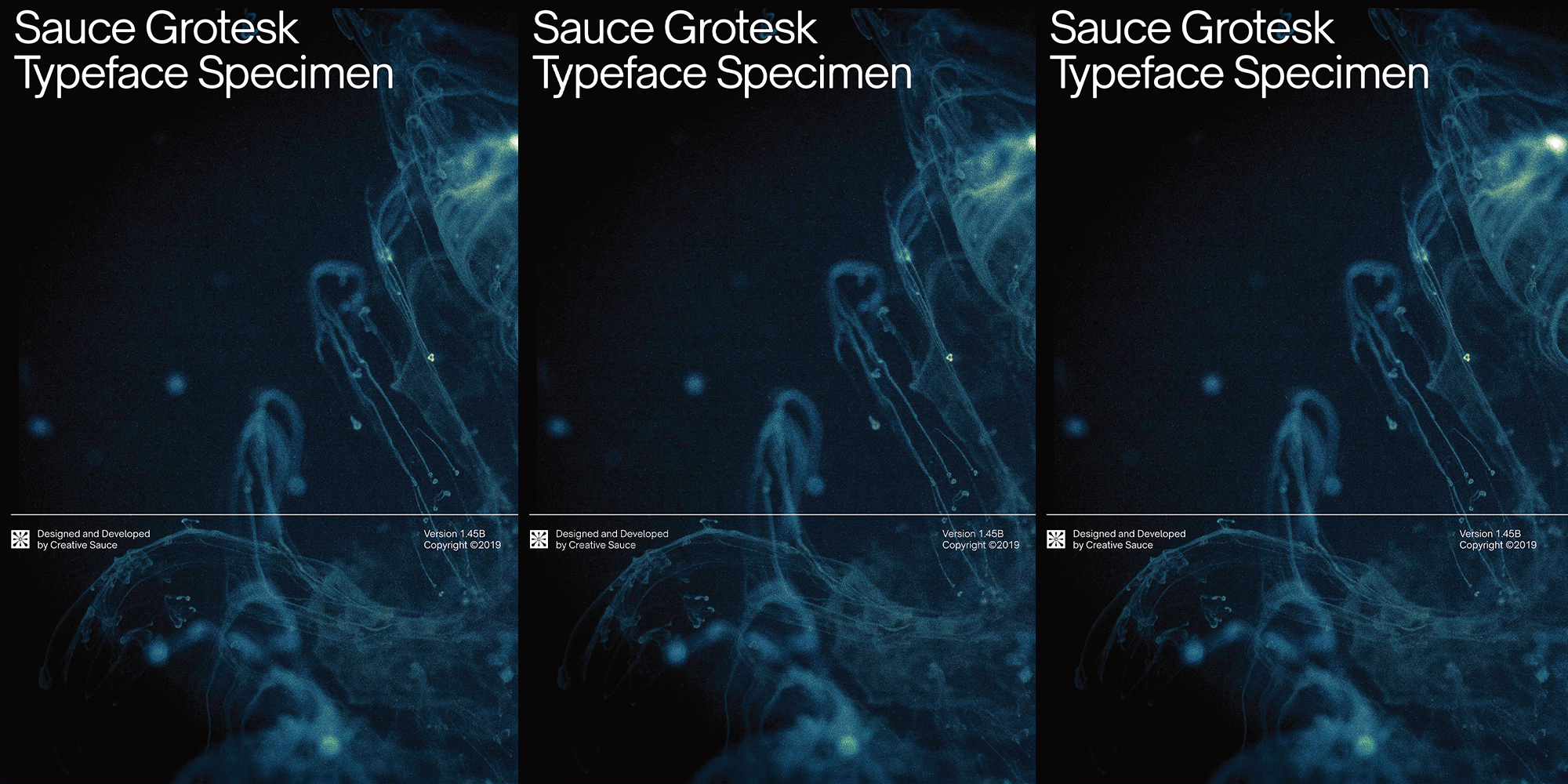
The Sauce Grotesk Font is perfect for modern tech startups, minimalist brand identities, contemporary web design, clean mobile interfaces, progressive corporate communications, architectural presentations, editorial magazines, sophisticated packaging design, innovative product branding, and cutting-edge digital applications.
What makes the Sauce Grotesk Font exciting is its masterful fusion of traditional grotesk heritage with contemporary innovation, creating a versatile typeface that bridges classic typographic principles with modern design sensibilities. This sophisticated font features clean geometric construction, optimized digital proportions, and refined character variations that deliver exceptional clarity across all platforms while maintaining the authentic personality that makes grotesk fonts timelessly appealing. Each letter demonstrates perfect balance between functionality and character, representing the evolution of classic typography for the digital age.
The Sauce Grotesk Font family includes thin, light, regular, medium, bold, and black weights, along with matching italics and extensive character sets that support comprehensive multilingual applications and advanced typography features.
Whether you're developing tech brand identities or creating contemporary editorial designs, Sauce Grotesk Font Free Download provides unmatched versatility and modern typographic excellence. Its expertly refined letterforms ensure outstanding legibility across digital and print media while projecting the clean sophistication that contemporary audiences expect. The font's OpenType features include stylistic alternates, contextual ligatures, and advanced numeral systems that enhance professional design standards. Modern brand designers and digital typographers consistently choose this font for projects requiring both reliability and contemporary appeal. The Sauce Grotesk Font transforms standard text into polished modern communication, making it an indispensable foundation for any designer's contemporary typography toolkit.